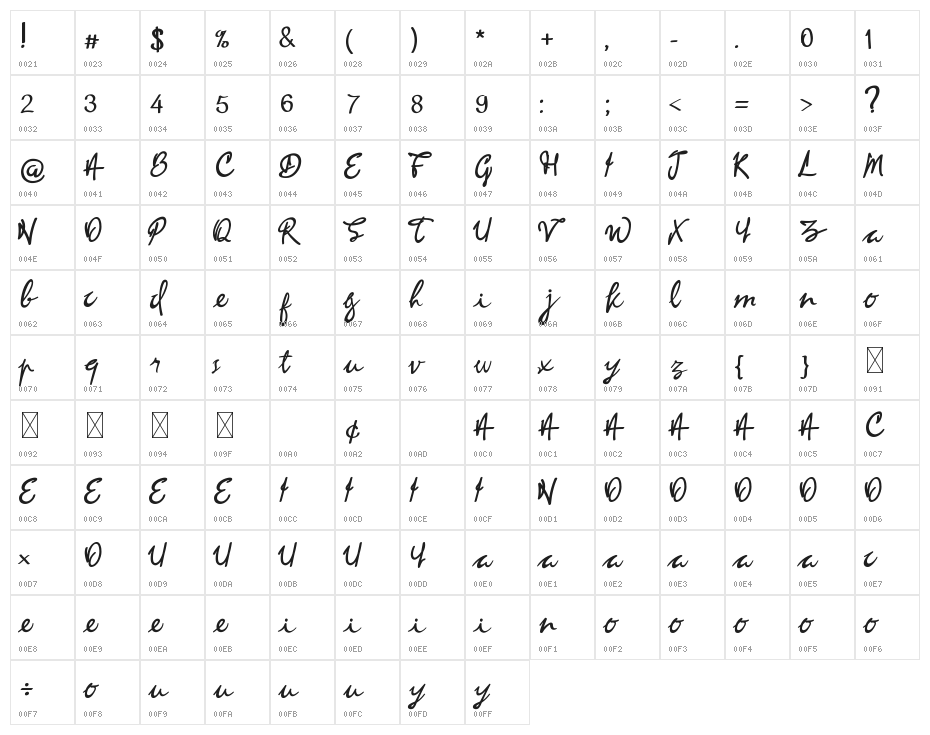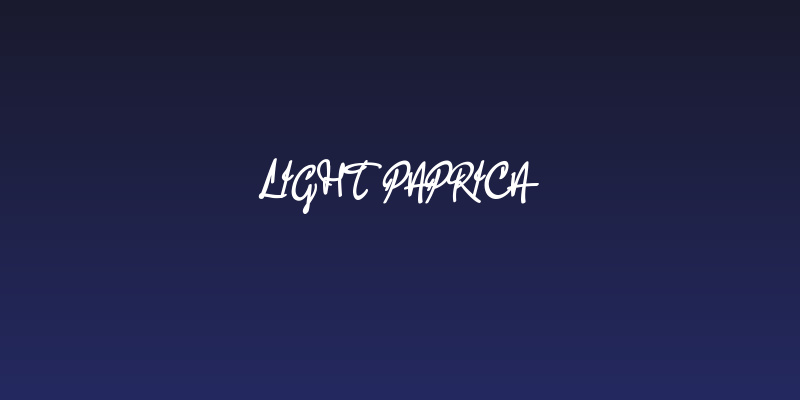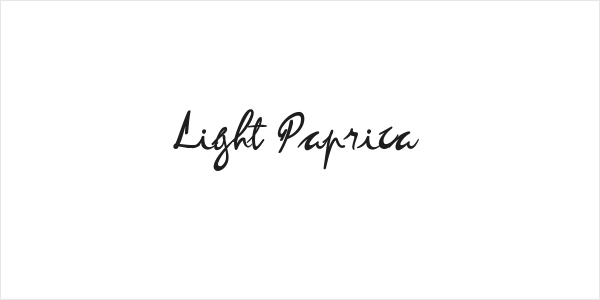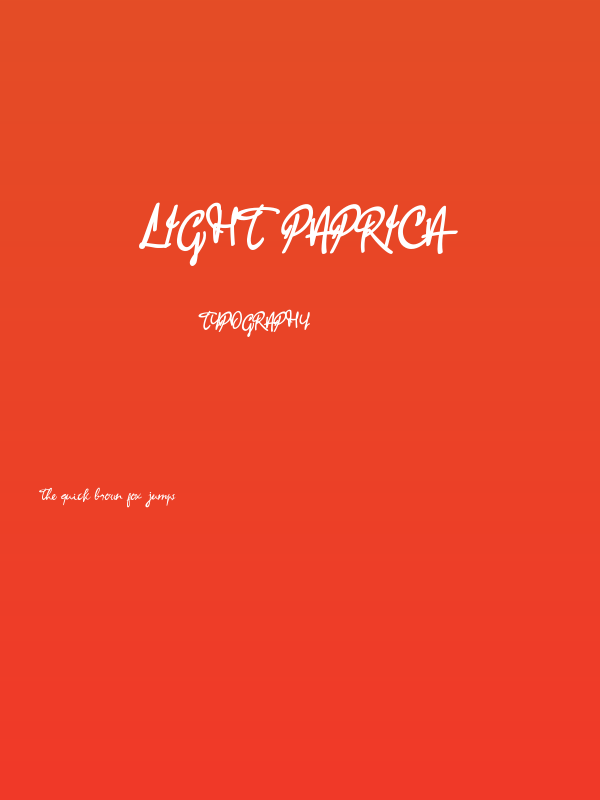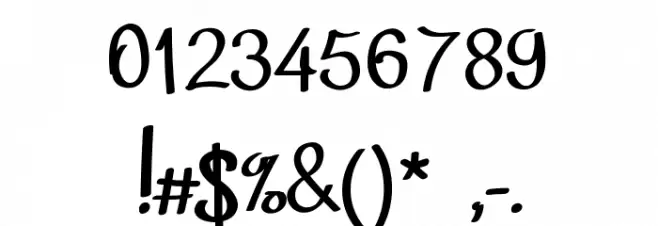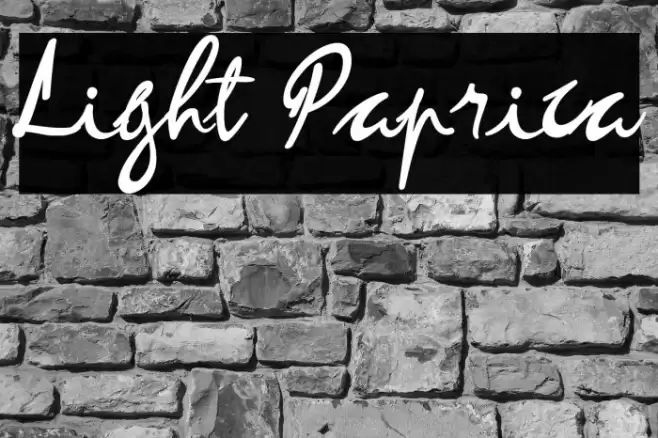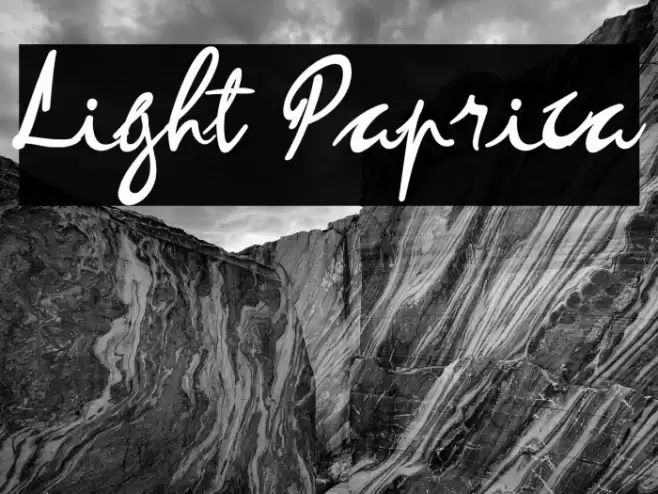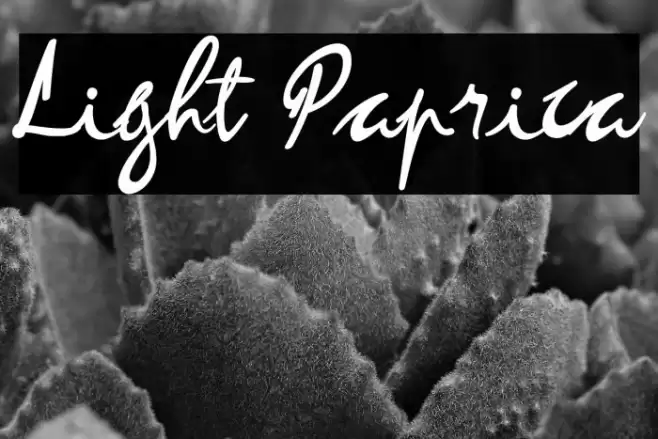
Light Paprica Font
This font exudes a lively and energetic vibe with its bold, flowing script style. The characters are connected in a cursive manner, giving it a handwritten appearance that feels both personal and expressive. The uppercase letters are slightly more elaborate, with sweeping curves and loops, while the lowercase letters maintain a consistent fluidity. The numerals and special characters follow the same dynamic style, ensuring a cohesive look across all text. This font is ideal for projects that require a touch of elegance and personality, such as invitations, greeting cards, or branding materials.